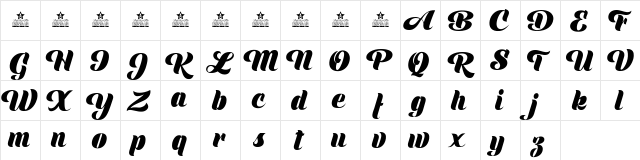
Shine Personal Use Regular Font Preview
Shine Personal Use Regular
Shine Personal Use Regular Font Details
Design Context for Shine Personal Use Typeface
Shine Personal Use is a composed and adaptable typeface that performs quietly and consistently across a wide range of design contexts.